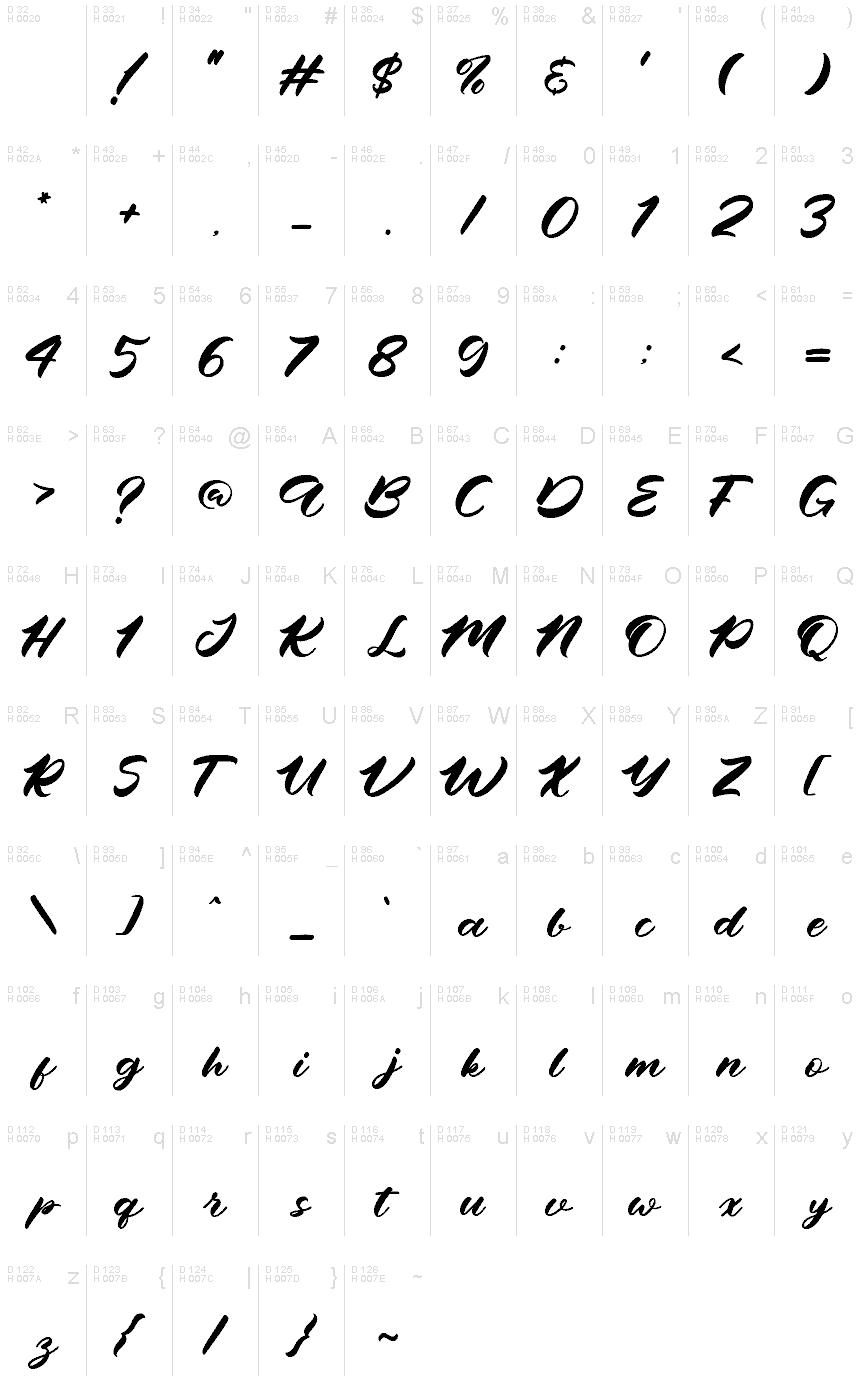
NCL Bujho Orgnist
NCL Bujho Orgnist font by Enxyclo Studio is an expressive brush font with fluid, elegant, ornamental letters. They have a vintage-inspired feel and a nostalgic tone that’s visible throughout the entire set. Each glyph in this collection has pronounced strokes which increases the boldness of the handwritten text.
The free brush typeface is perfect for designing branding projects and visual identities such as those for coffee shops or small diners. Comfortable and relaxed restaurant menus are also suitable with artistic use of headlines and sub-headers. Calligraphic invitations, cards, posters as well as typography prints can find benefits from using this font.